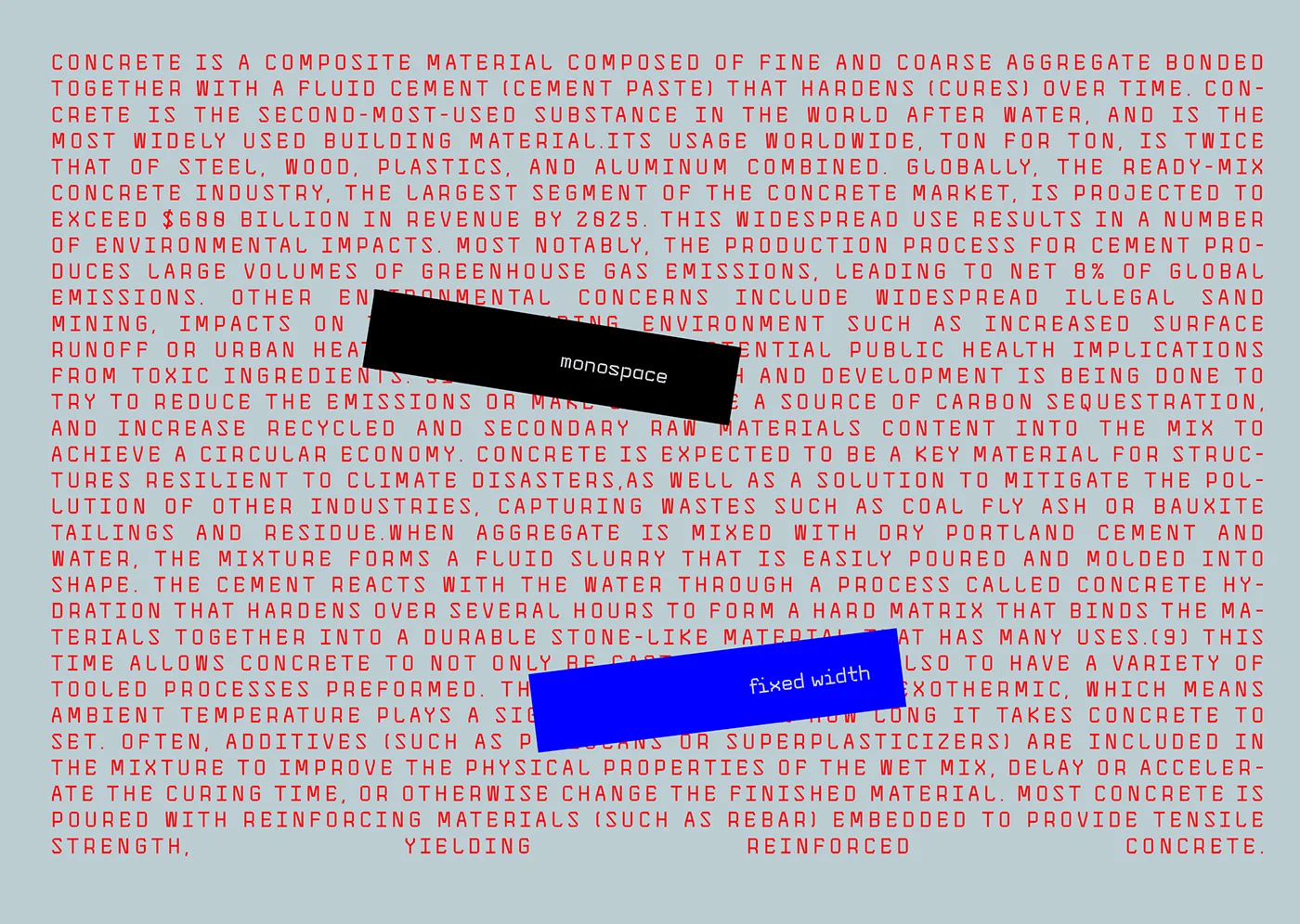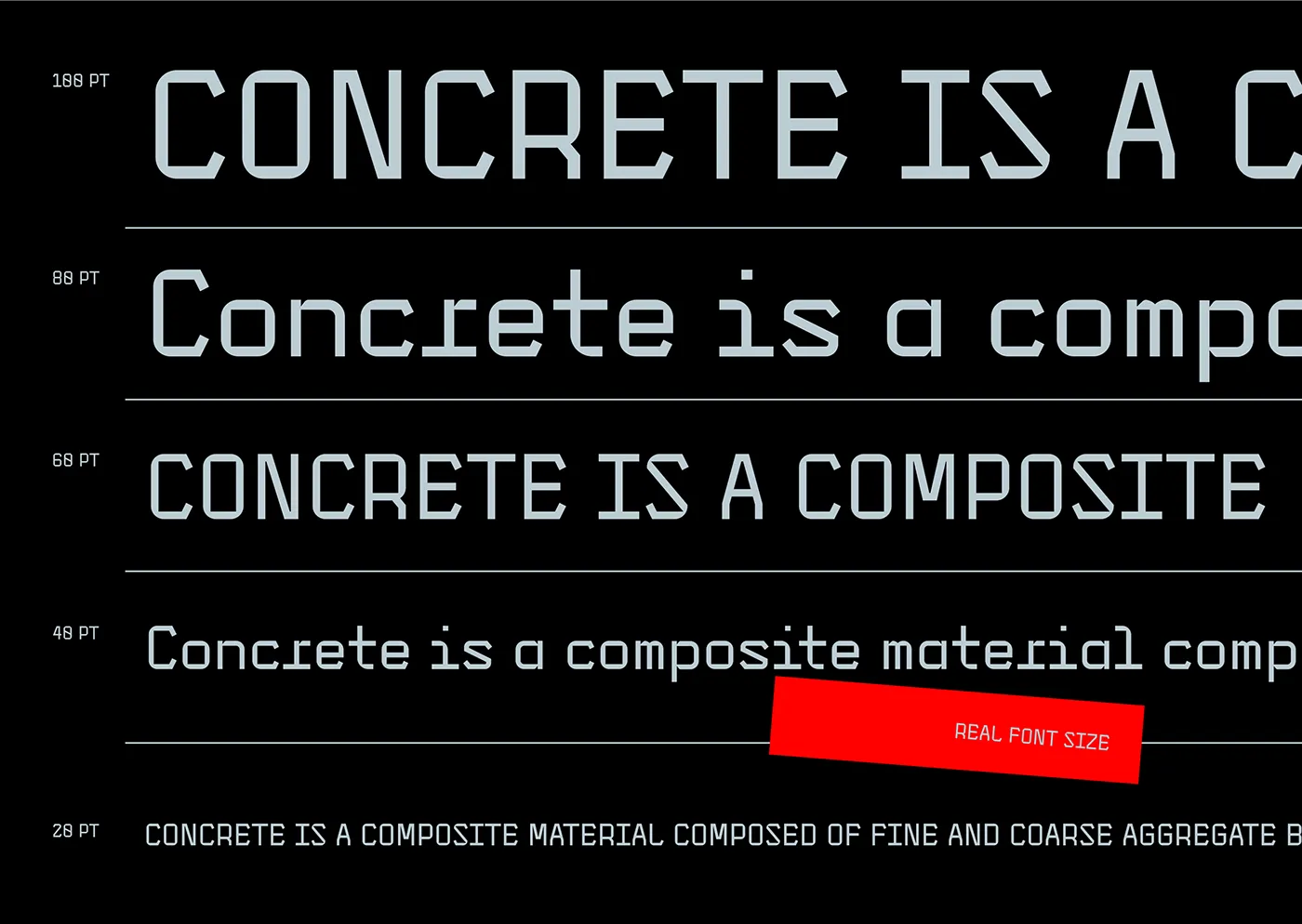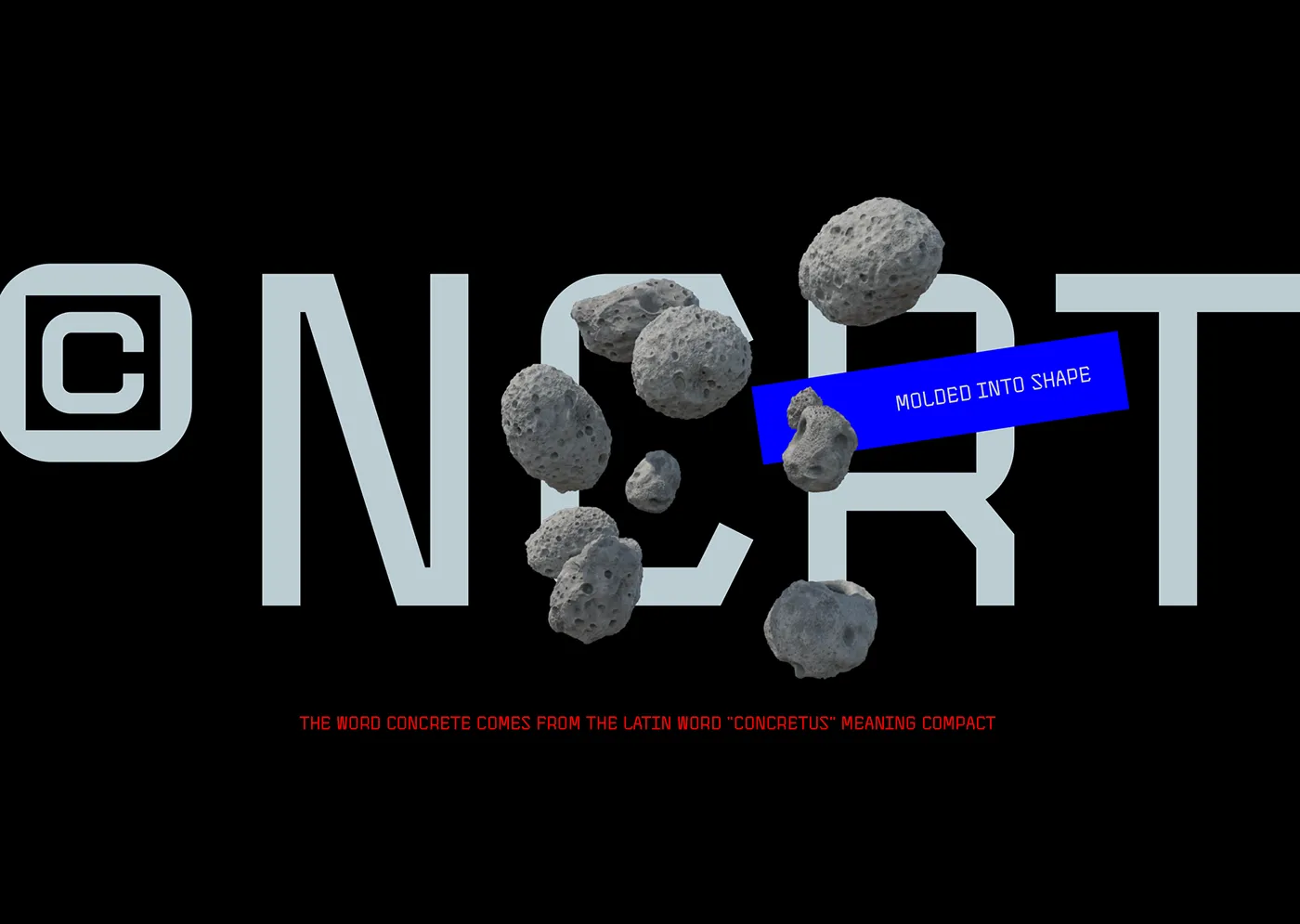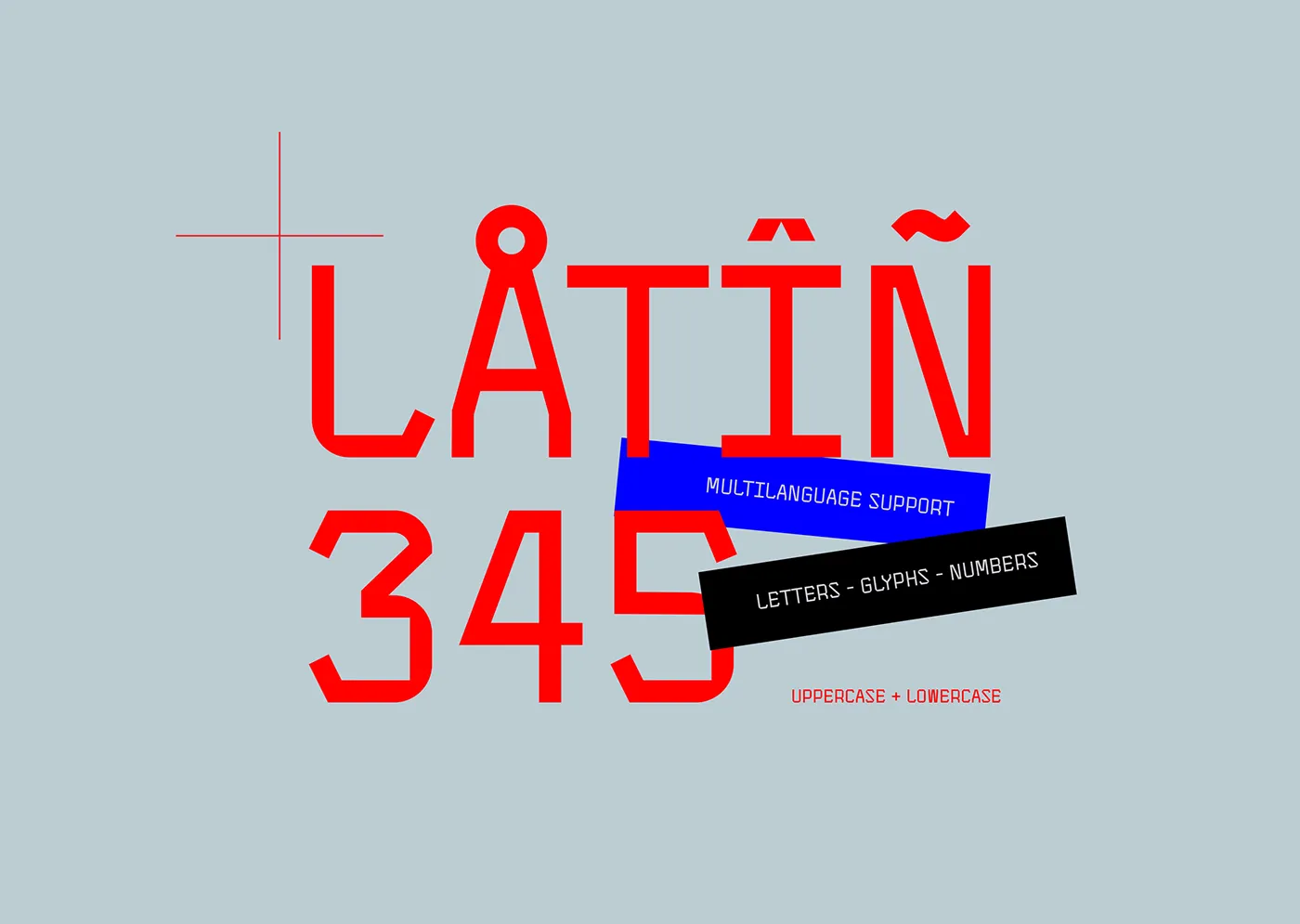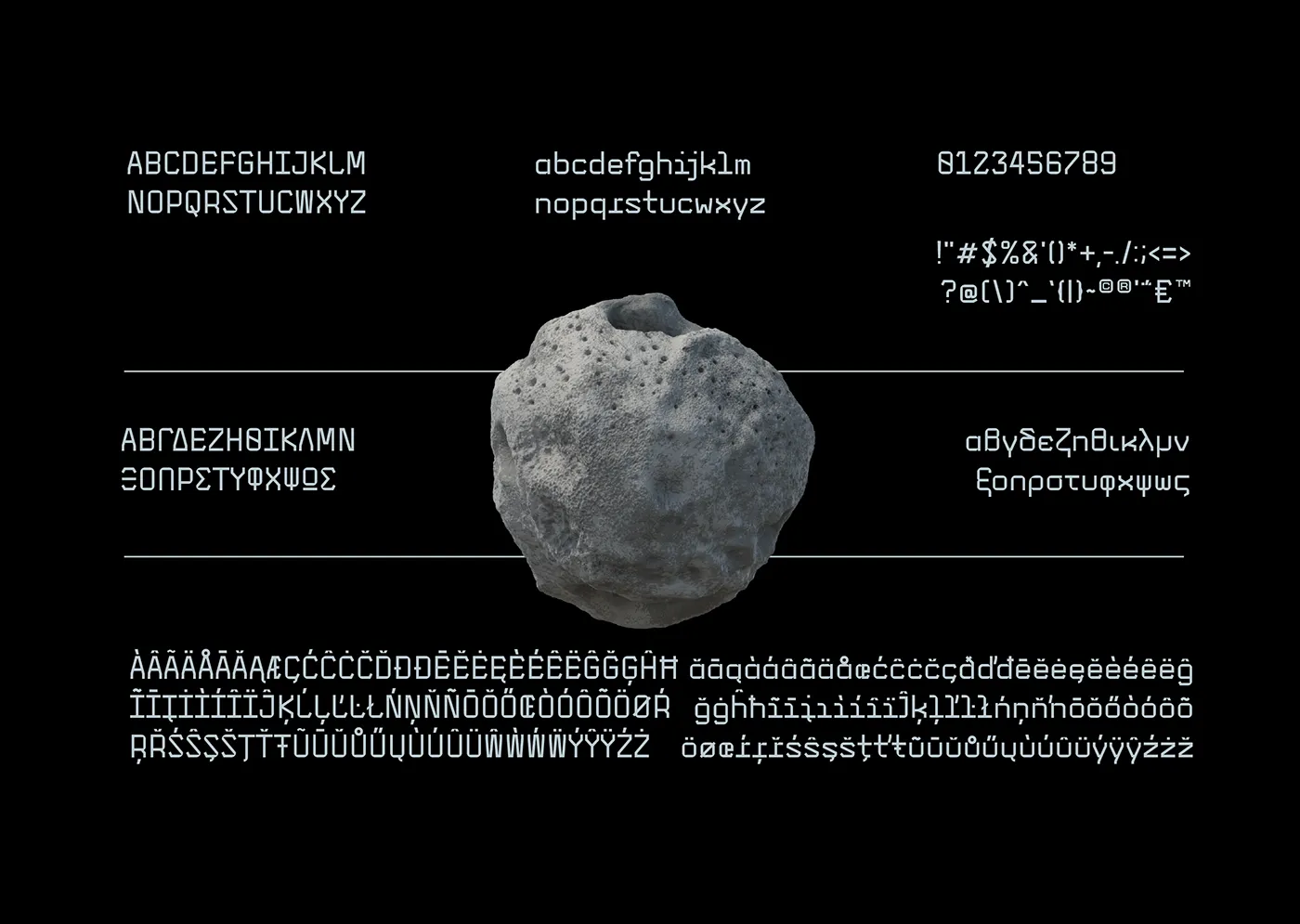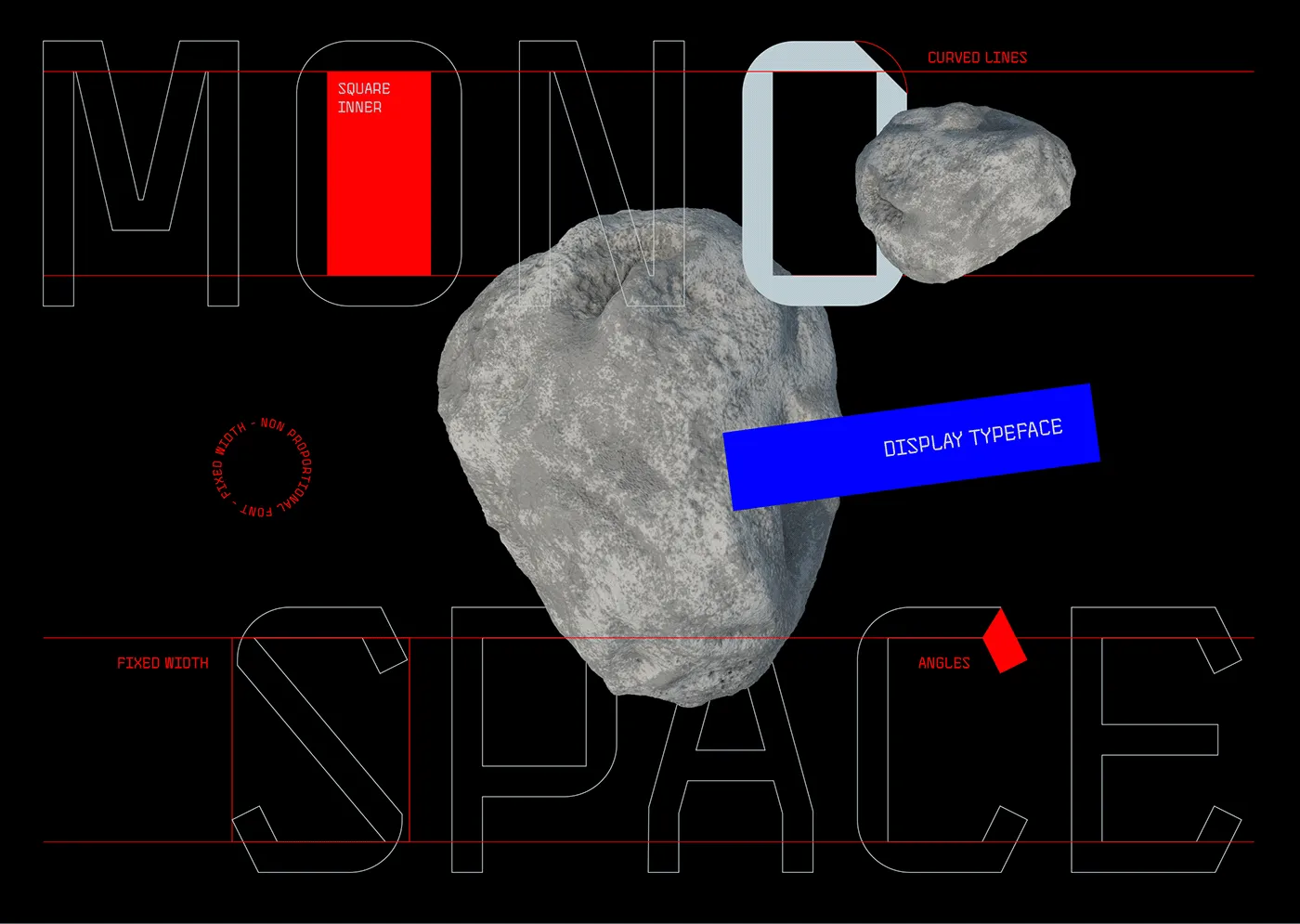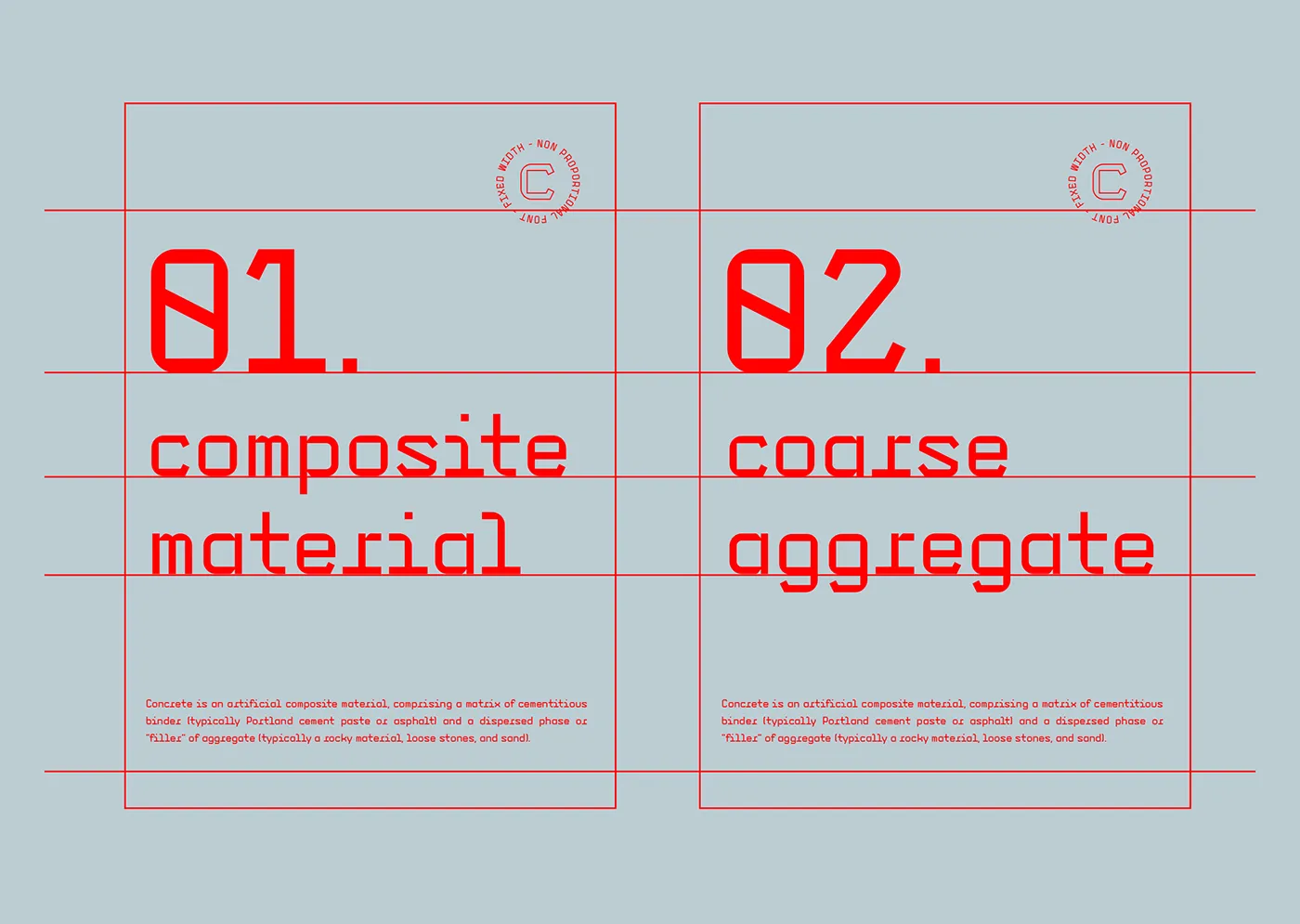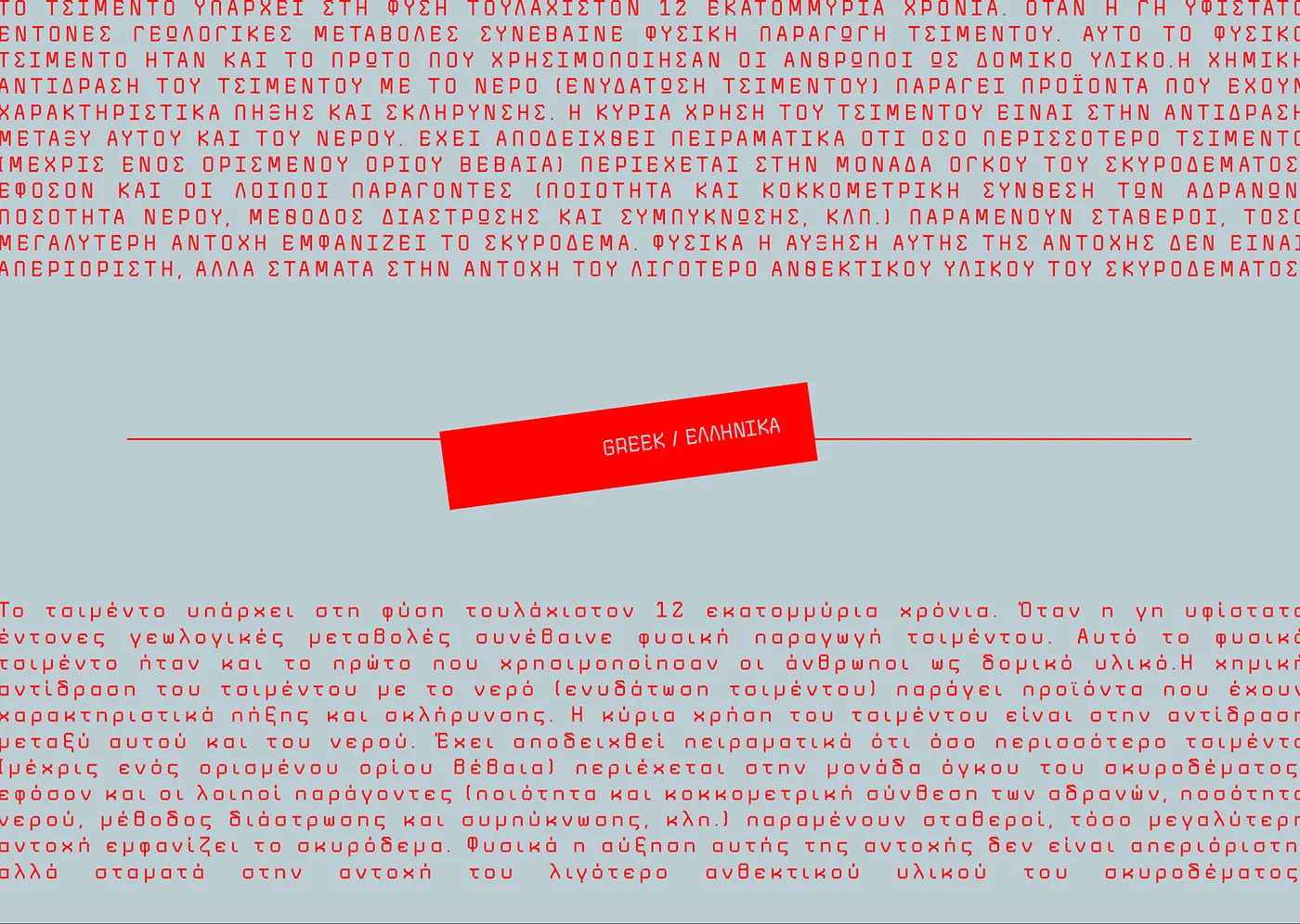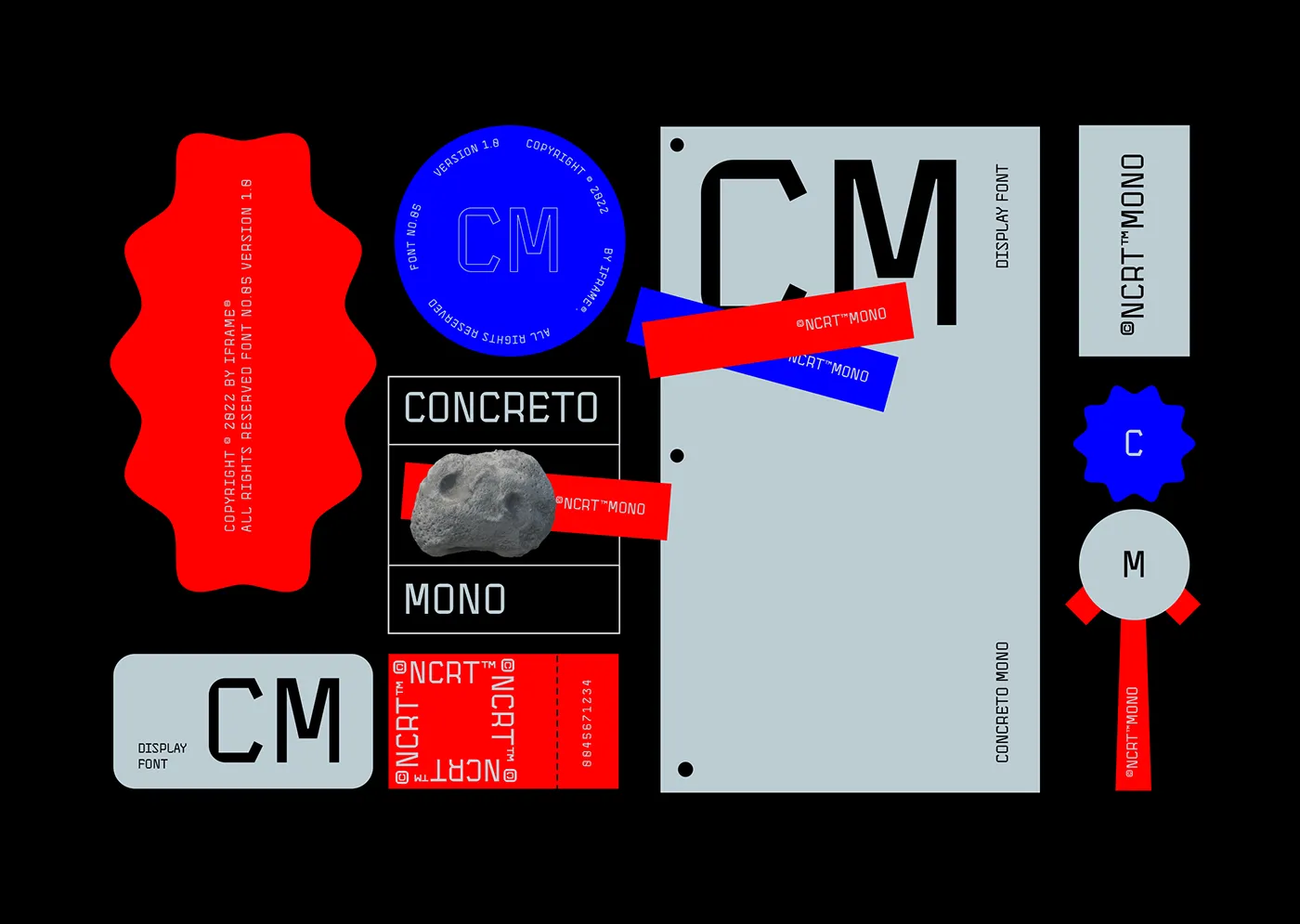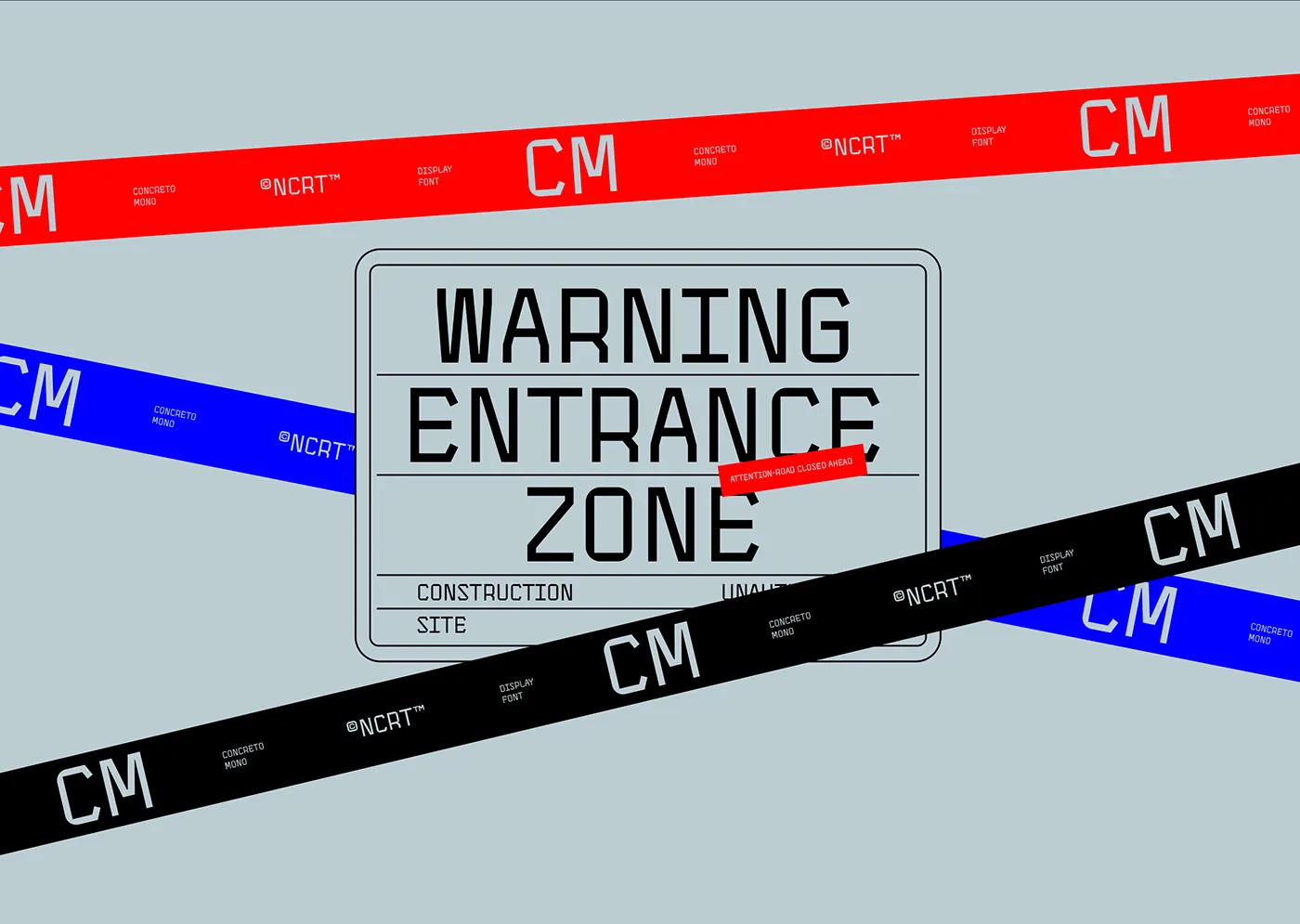
CONCRETO MONO FONT
Concreto Mono is a monospaced sans serif, built in regular style. The word concrete comes from the Latin word “concretus” meaning compact.
• Opentype Features
• 1 weight
• Upper / lower case, numbers, punctuation
• Supported Languages: Latin & Greek